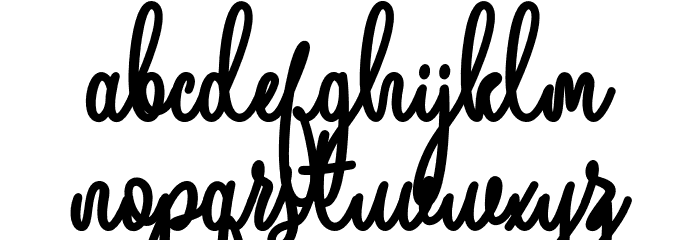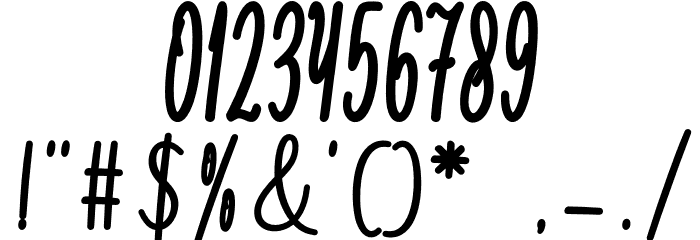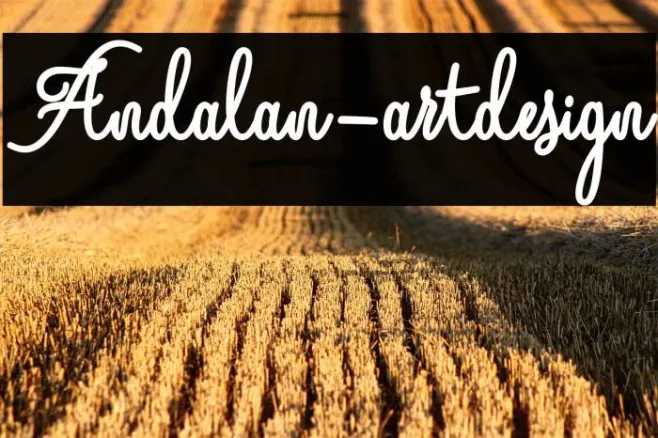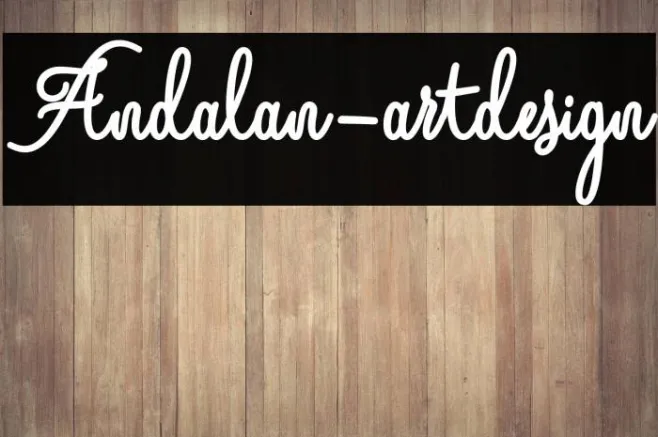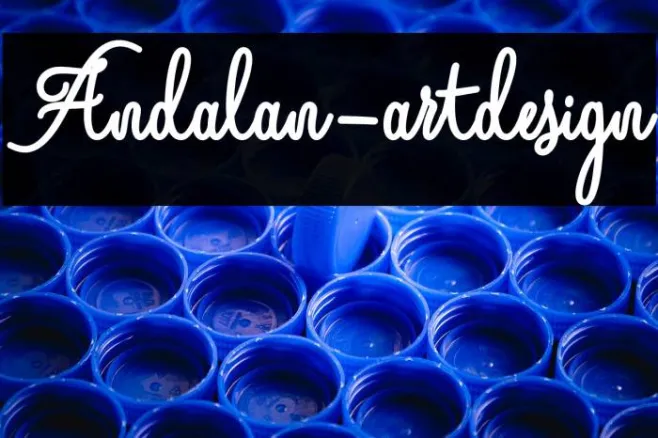
Andalan-artdesign Font
This font features an elegant and flowing script style with a distinct cursive appearance. The uppercase letters are ornate, with intricate loops and swirls that give a sophisticated and artistic feel. The lowercase letters maintain a consistent flow, with smooth connections between characters, enhancing readability while preserving the decorative nature. The numerals are styled to match the script, with slight variations in thickness that add to the overall charm. Special characters are seamlessly integrated, maintaining the font's cohesive aesthetic. This font is ideal for projects that require a touch of elegance and creativity.
An elegant, flowing script font with ornate uppercase and smooth lowercase characters.
- Font: Andalan-artdesign
- Proposed Projects: Ideal for wedding invitations, greeting cards, branding, and logo design.
- Use Case: Logos, Invitations, Decorative text